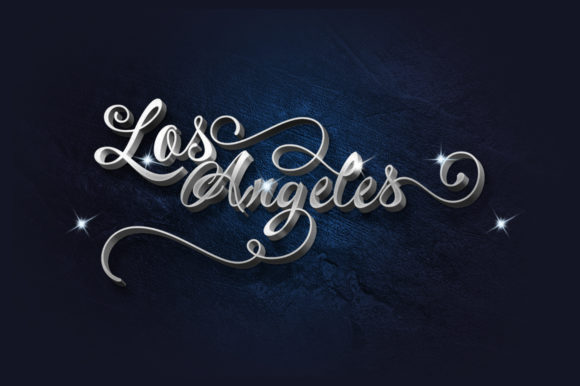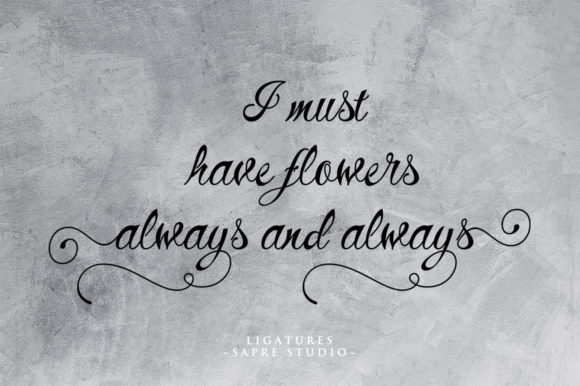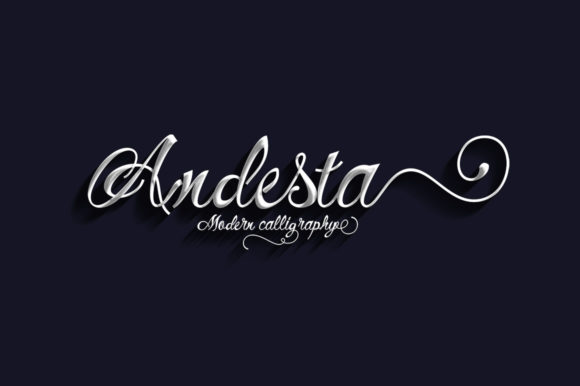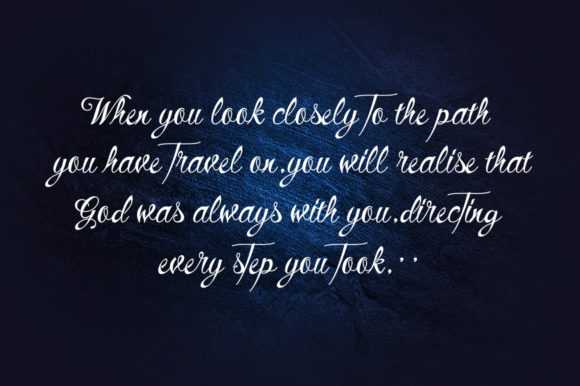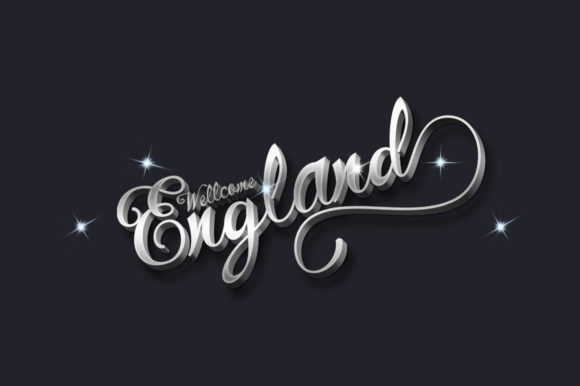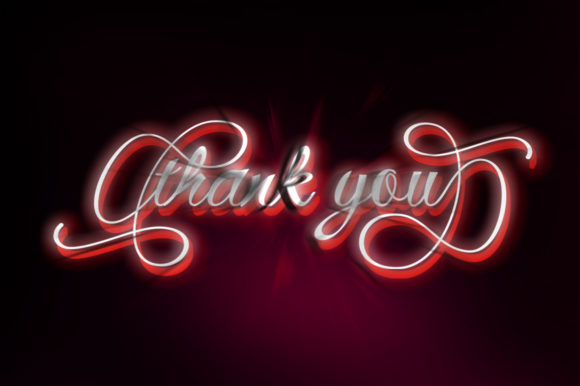
HomeScript FontsZaskia Font Script Fonts Zaskia Font FacebookXPinterestWhatsApp Zaskia Font Poster 2 Zaskia Font Poster 3 Zaskia Font Poster 4 Zaskia Font Poster 5 Zaskia Font Poster 6 Zaskia Font Poster 7 About Zaskia Font Zaskia is a stunning and sophisticated script font with a bold twist. Fall in love with its authentic swashes. DOWNLOAD NOW People also explored Charlotte Font Blackid Font Water Font Clana Font Caviertes Font Agusta Font Kangen Michella Font Flawlessly Font Beone Black Font 340 0 TagsZaskia Font Previous articleNathallie FontNext articleBunglon Font LEAVE A REPLY Cancel reply Comment: Please enter your comment! Name:* Please enter your name here Email:* You have entered an incorrect email address! Please enter your email address here Website: Save my name, email, and website in this browser for the next time I comment. Personal Use Free Santhony Personal Use Free Read more about this font Bollado Personal Use Free Read more about this font Coconote Personal Use Free Read more about this font Salmoni Personal Use Free Read more about this font BLOG How to Install and Use Fonts on Windows, macOS, and Web Projects How to Install and Use Fonts on Windows, macOS, and Web Projects Fonts are a crucial part of design and branding. Whether you’re designing a... Transform Your Website: Elevate Your Typography with 7 Best Web Font Generators Free vs Paid Fonts: Why Investing in Premium Fonts Is Worth It Using Fonts in Digital Marketing: Tips to Strengthen Your Brand Identity